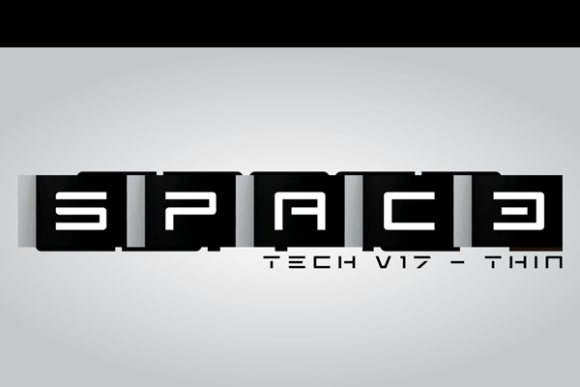
Welcome to the world of Spac3 Font, an extraordinary sans serif font family, carefully crafted by Qbotype Fonts. This font is not just a collection of letters and symbols; it's an artistic masterpiece designed to ignite your creativity and transport your designs to a realm of wonder.
Immerse yourself in the whimsical charm of Spac3, a font that dances across the screen with its modern, playful style. Its carefully crafted curves and angles create a visual symphony that captivates the eye and enchants the soul. Whether you're a seasoned designer or just starting your creative journey, Spac3 will elevate your work to new heights of visual allure.
Unleash your imagination and let the magic of Spac3 transform your digital magazine into a captivating masterpiece. This font is a perfect companion for expressing your unique voice and style. Its enchanting characters will weave a spellbinding narrative that draws readers into your digital world. From captivating headlines that demand attention to elegant body text that flows effortlessly, Spac3 will make your magazine a joy to behold.
With Spac3, you'll find endless possibilities for creative expression. Its versatility shines through in every design, whether it's a captivating logo, an eye-catching poster, or an enchanting social media post. Its ability to adapt to any project makes it a must-have in your font arsenal.
Prepare to be mesmerized by the allure of Spac3. Experience the magic as your designs come to life with a touch of whimsy and elegance. This font is more than just a visual tool; it's an invitation to let your creativity soar and create designs that leave a lasting impression.